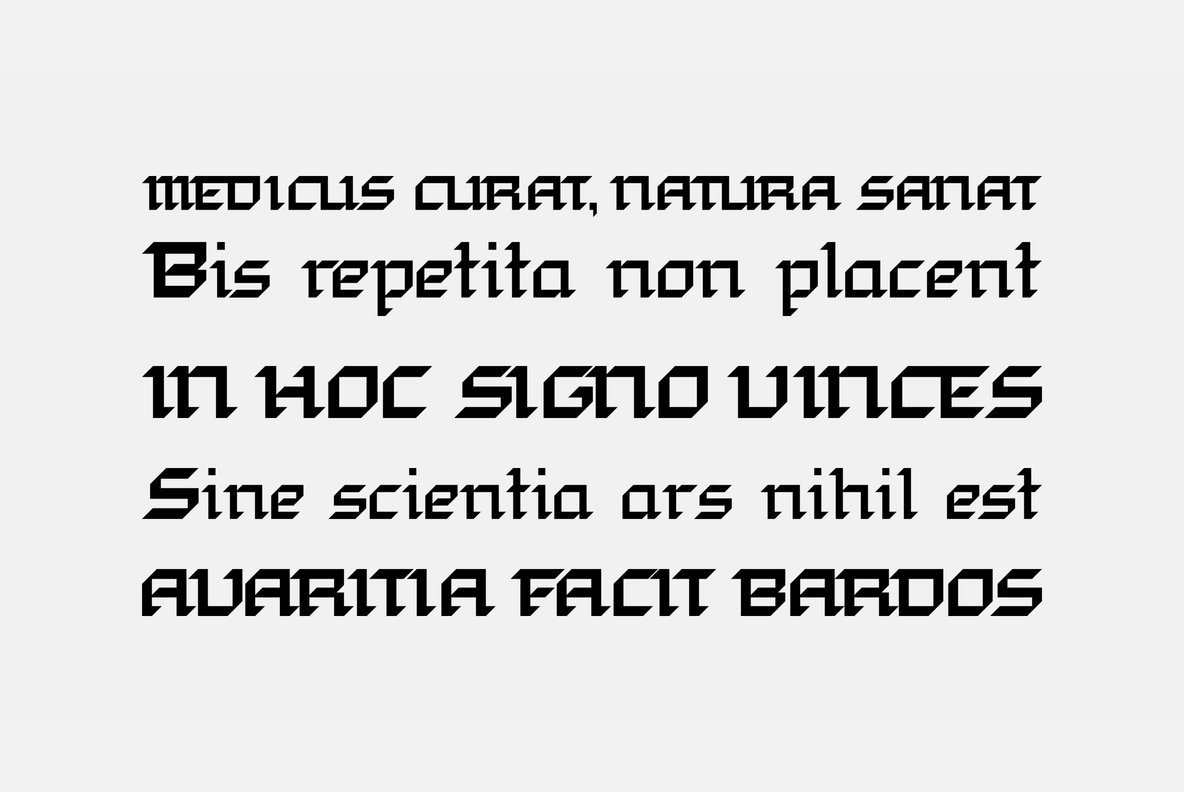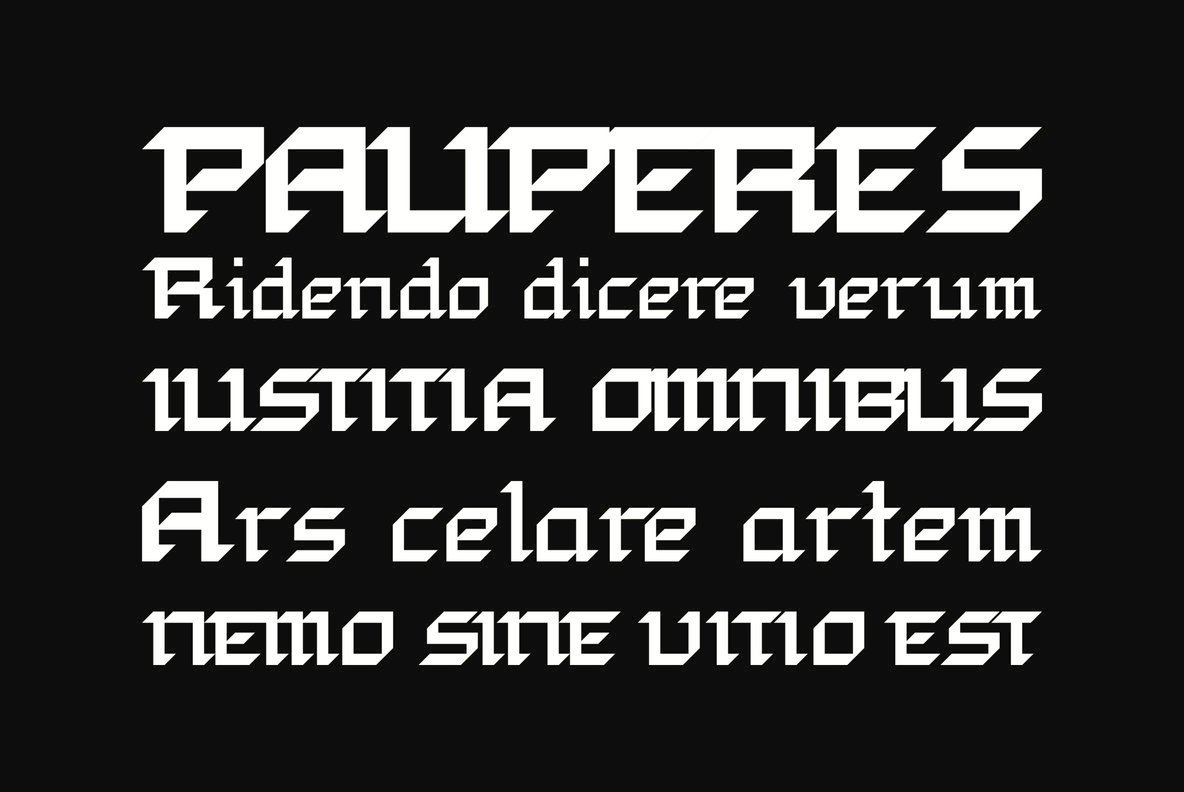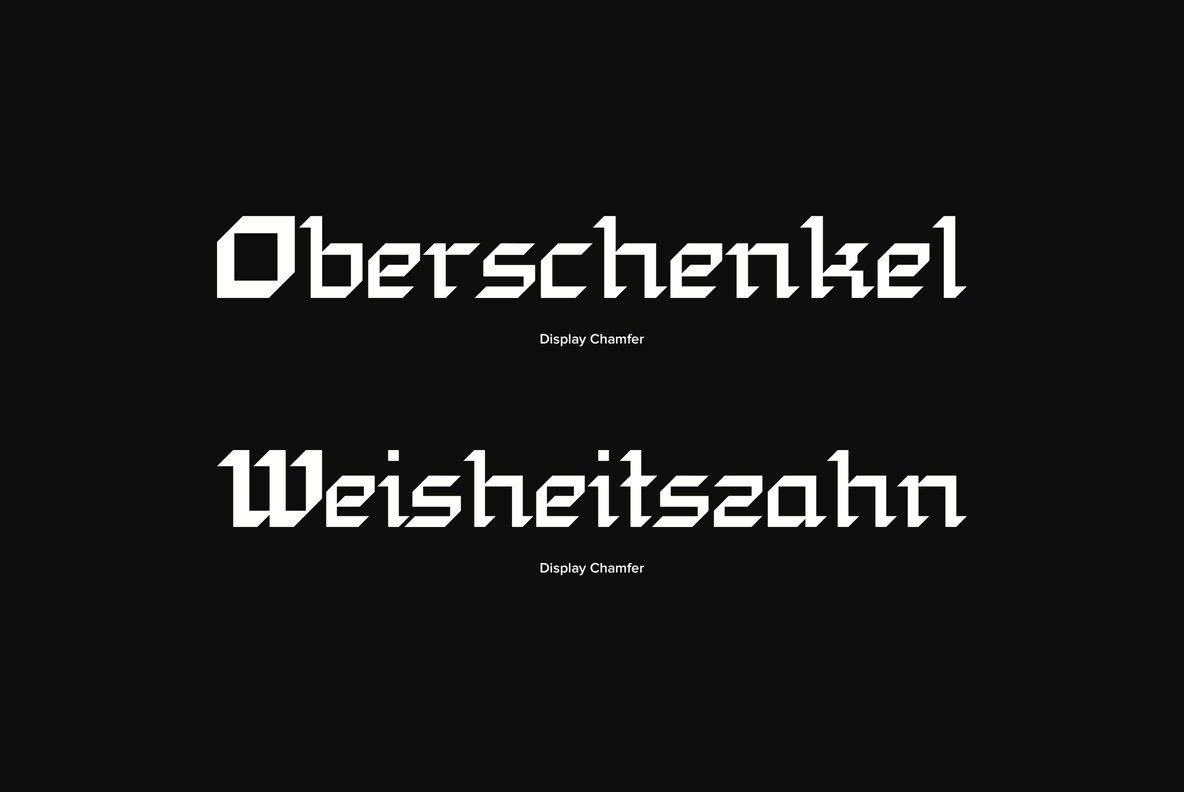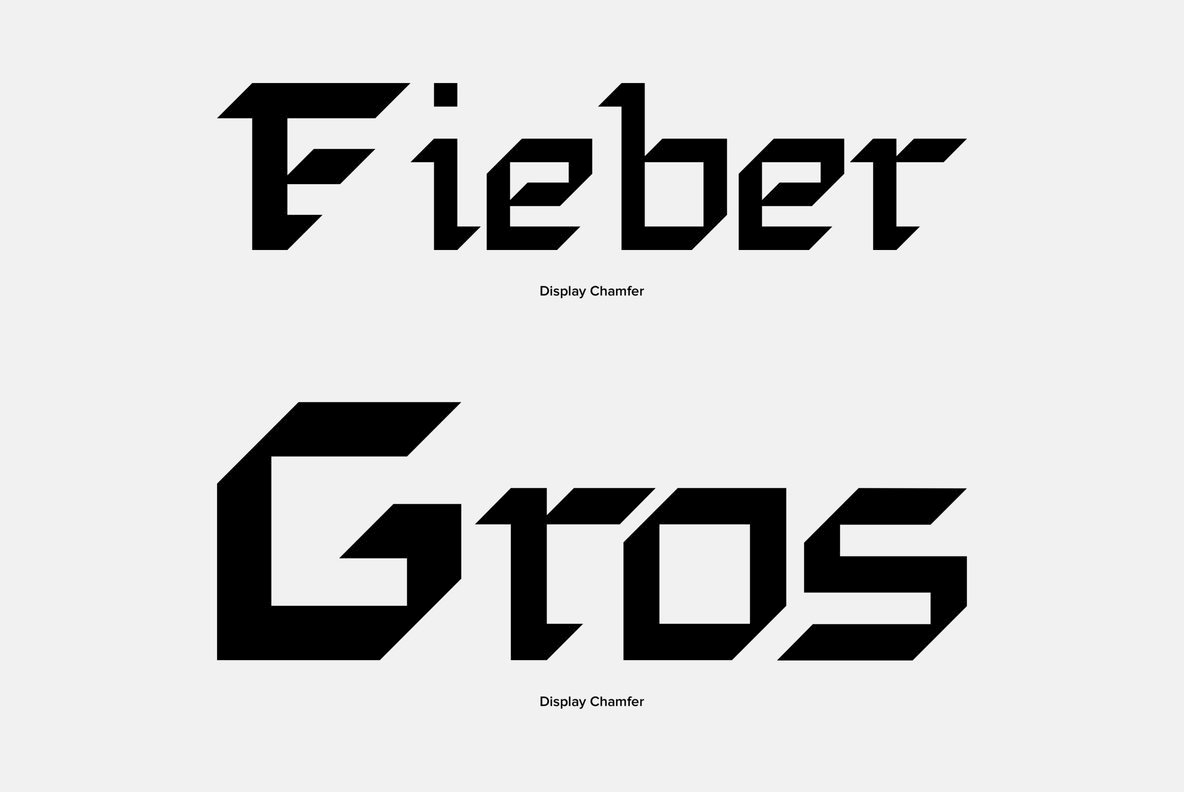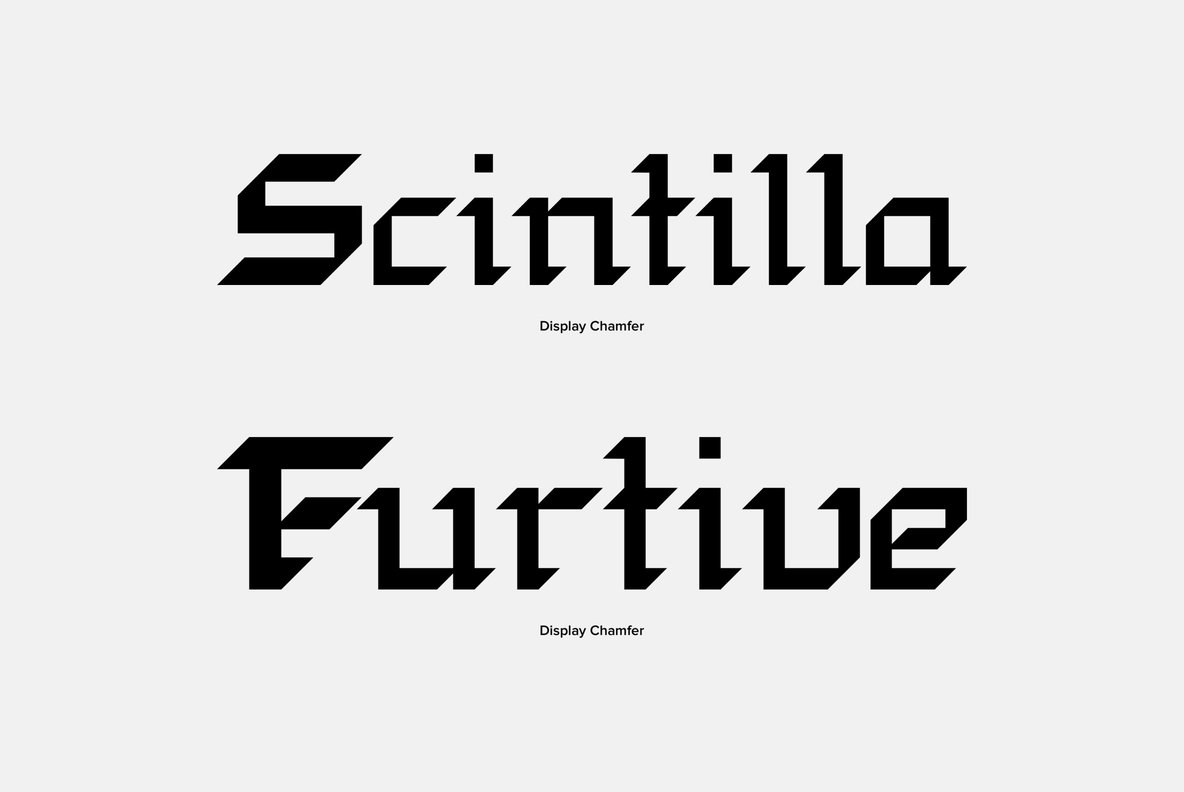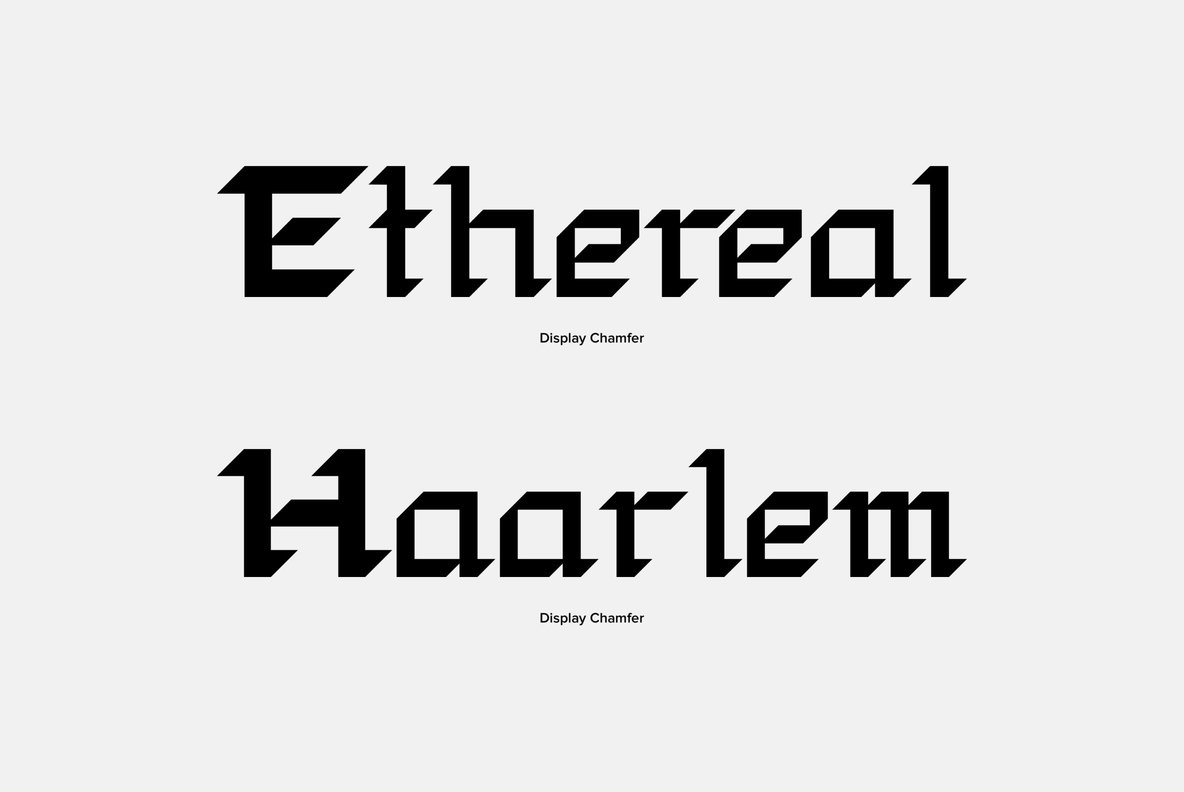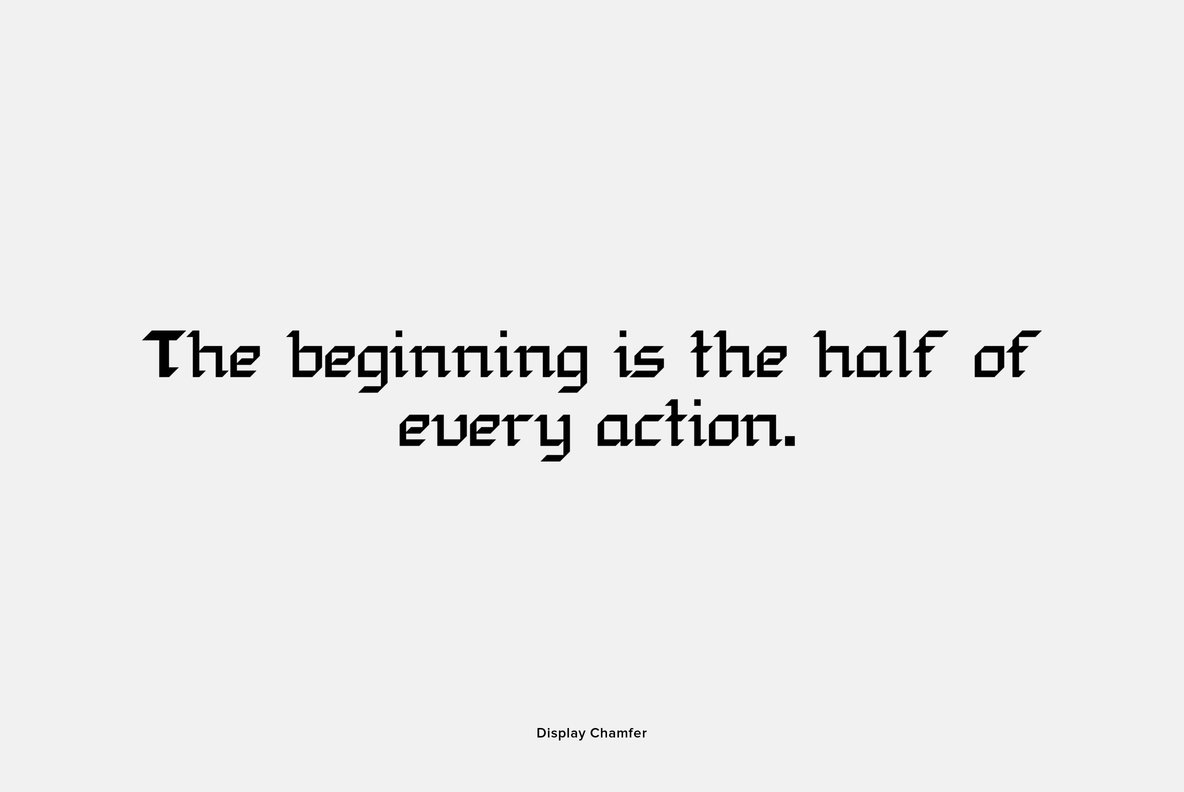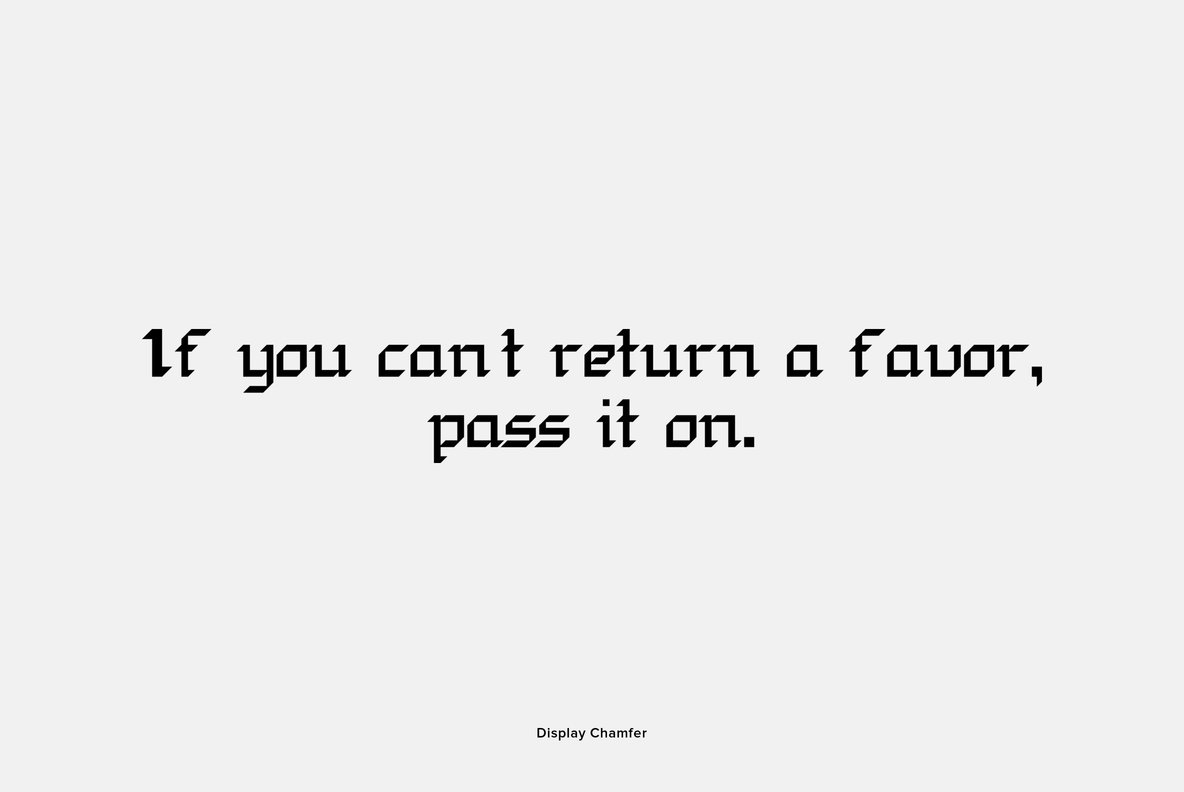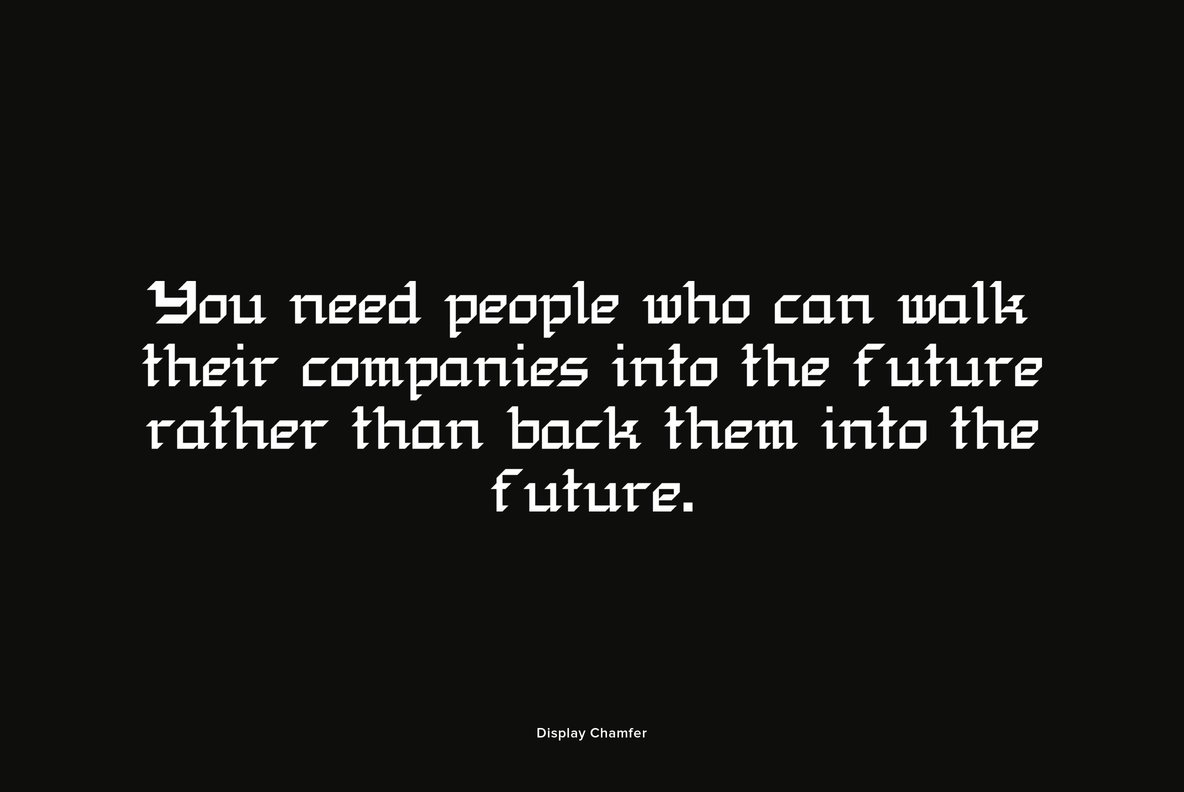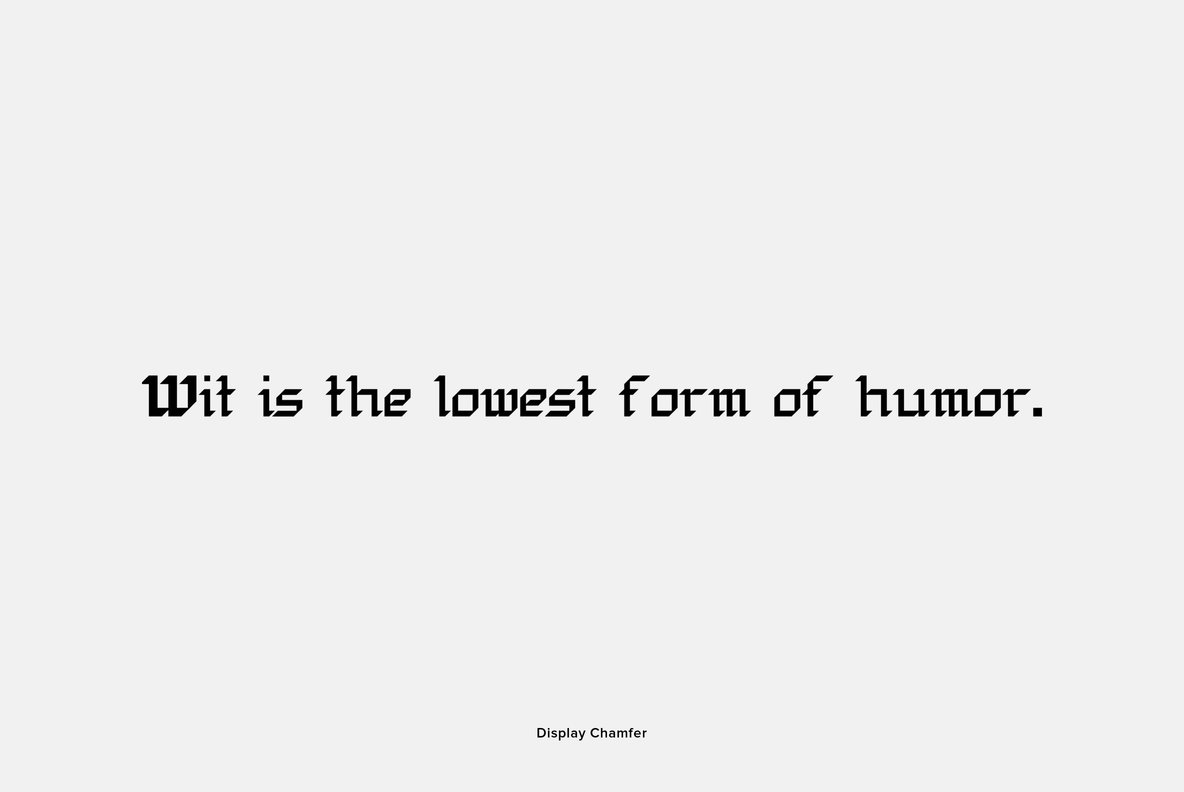
Display Chamfer Font
Display Chamfer
Display Chamfer is a display font not intended for text use. It was designed specifically for display, headline, logotype, branding, and similar applications. It has caps, lowercase and numbers.
Gerald Gallo is a professional graphic designer.While designing trademarks and logotypes, Gerald often designed unique lettering. It was a natural step to create entire alphabets from some of these designs. However, it was very difficult to have a font produced before the advent of the personal compute...